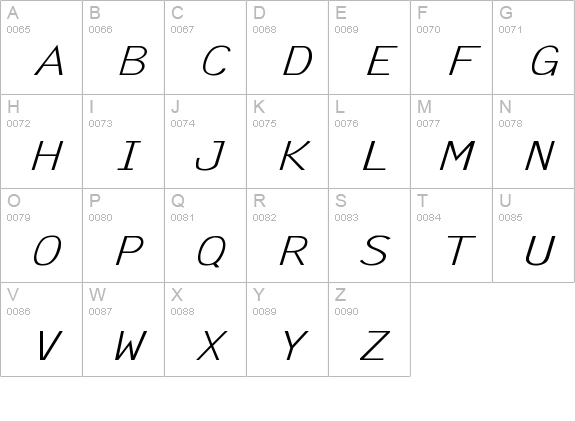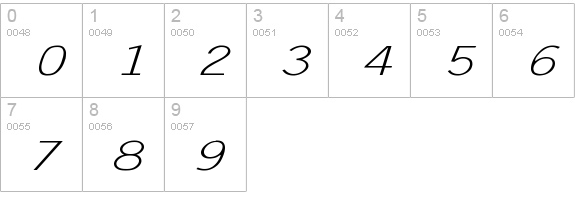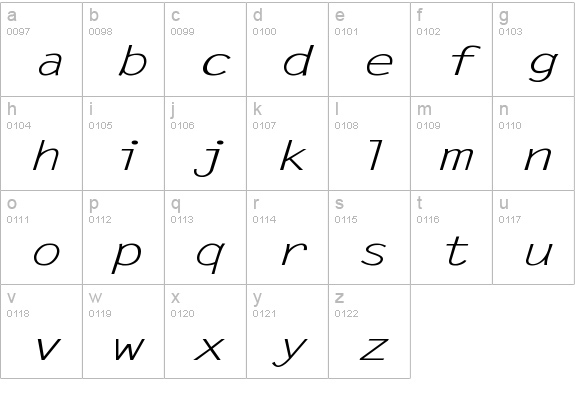
LetterGothic-Italic Ex is a distinctive, italic variant in the LetterGothic typeface family \xE2\x80\x94 well suited to design and typography projects.
LetterGothic-Italic Ex font is a stunning and stylish typeface that will add a touch of elegance and sophistication to any design project. With its slanted and italicized letterforms, this font exudes a sense of modernity and creativity. The LetterGothic-Italic Ex font is perfect for a wide range of applications, including branding, advertising, headlines, logos, and more. Its unique and eye-catching design will captivate your audience and make your message stand out. What makes this font even more remarkable is that it is free. Yes, you read that right! The LetterGothic-Italic Ex font is freely available to download at FontsMarket.com. You can enhance your designs without breaking the bank. This font allows you to unleash your creativity and express your ideas without any limitations. Downloading the LetterGothic-Italic Ex font is a breeze. Simply visit FontsMarket.com and access the font file with just a few clicks. Once downloaded, you can easily install it on your computer or use it in your favorite graphic design software. The LetterGothic-Italic Ex font is a must-have for designers, artists, and anyone who appreciates high-quality typography. Its elegant and sophisticated appearance will elevate your projects to new heights, making them visually stunning and memorable. Don't miss out on the opportunity to enhance your designs with the LetterGothic-Italic Ex font. Download it for free today at FontsMarket.com and unlock a world of creative possibilities.